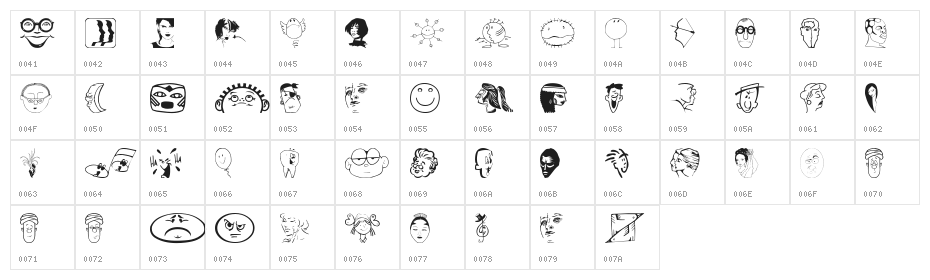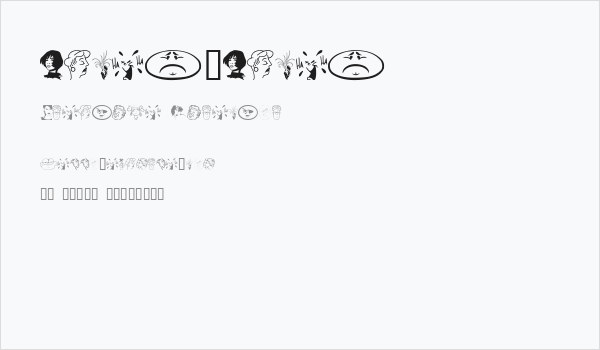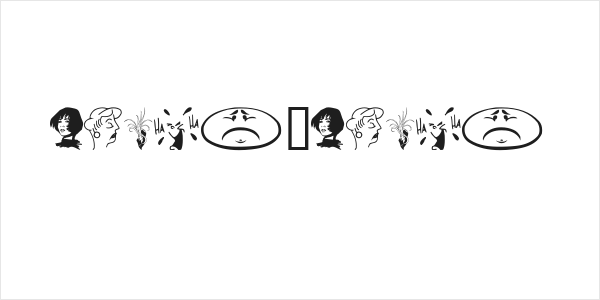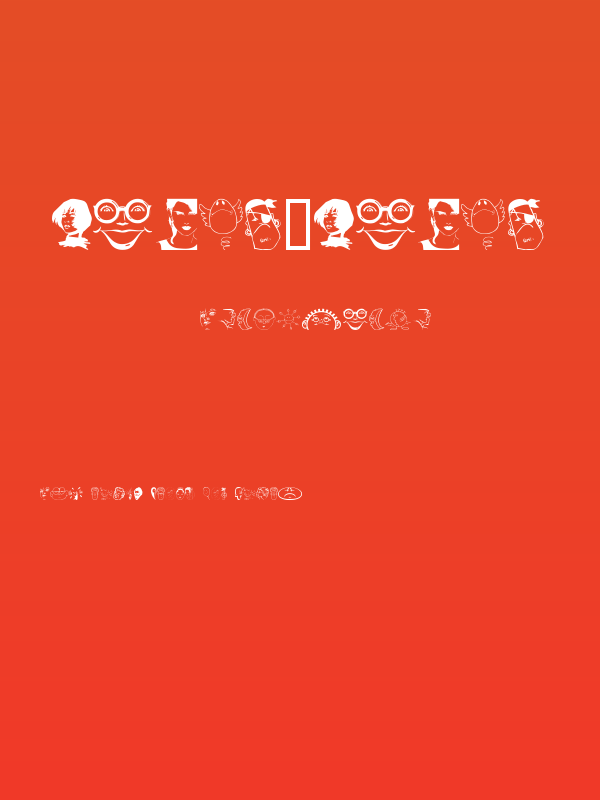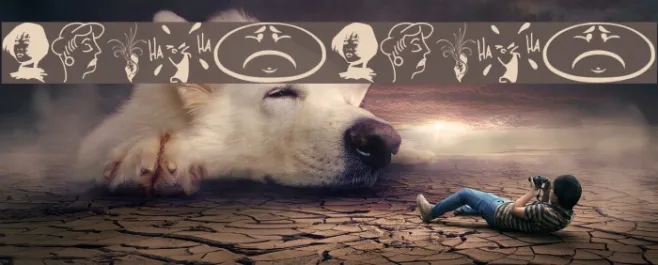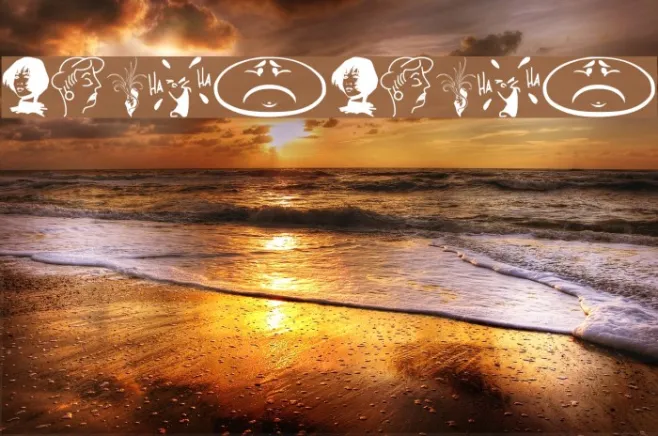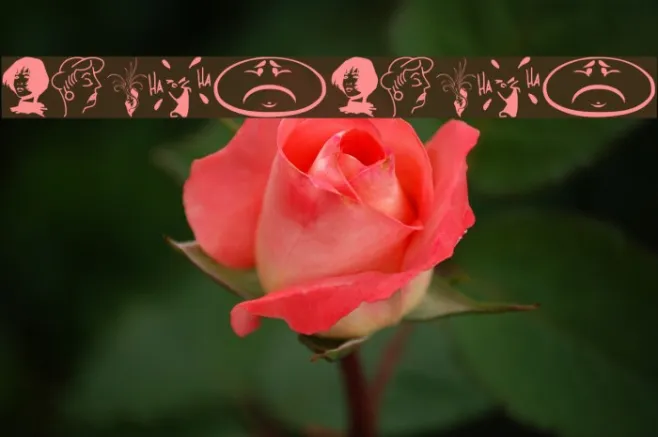
Faces2Faces Font
Faces2Faces Description
A highly decorative and whimsical dingbat font featuring a diverse collection of illustrated faces and headshots, each character representing a unique cartoon or stylized portrait. The glyphs are hand-drawn, playful, and vary in complexity, with some being simple smiley faces and others more detailed caricatures. The font does not contain traditional alphanumeric characters but instead uses each character slot for a different face illustration.
| Overall Style | Whimsical, Playful, Cartoonish |
| Use Case | Decorative elements, icons, spot illustrations, thematic dividers. |
| Proposed Projects | Children’s books, greeting cards, comic strips, educational materials, playful branding, decorative borders. |